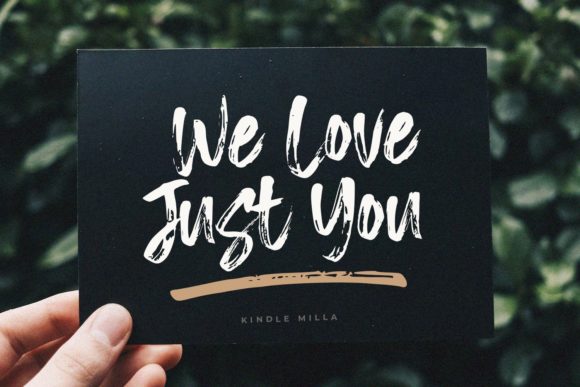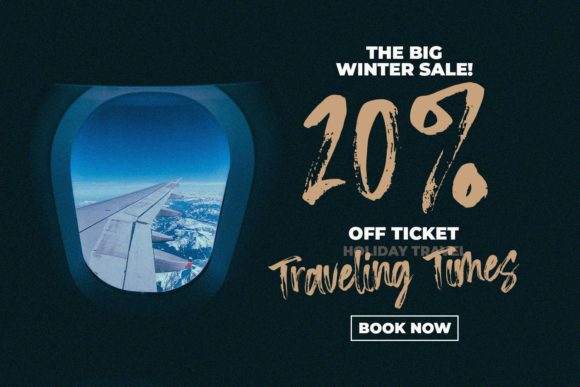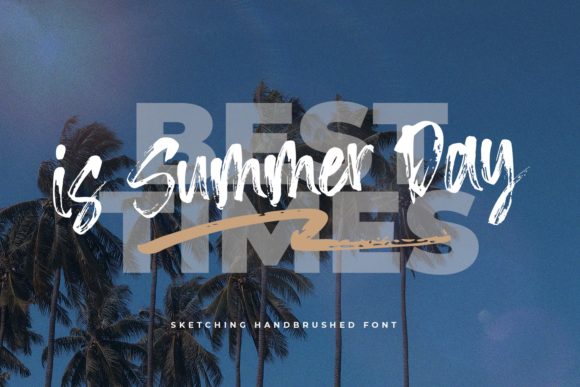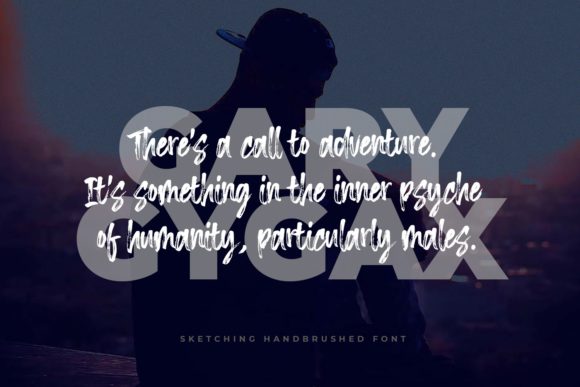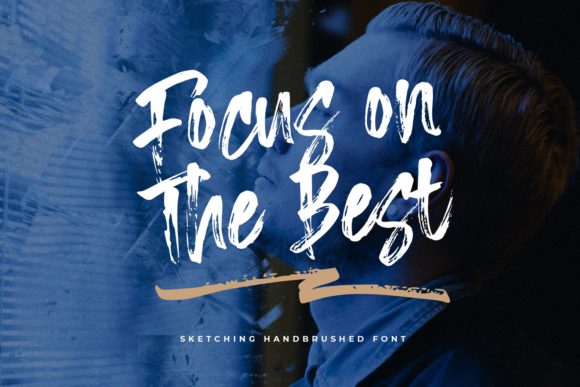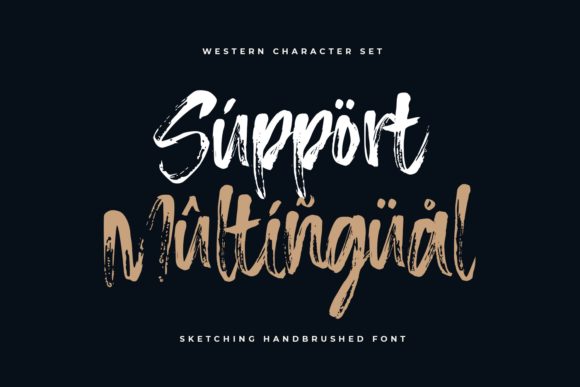
Introduction to Sketching Font
There’s something magical about the moment when a design idea comes together. You’re sitting at your desk, surrounded by scribbled notes and half-finished sketches, and suddenly it clicks – you’ve found the perfect font to bring your vision to life. For many designers, this moment is the culmination of hours of searching for the perfect design resource, and it’s what makes all the hard work worth it.
One font that’s sure to bring your creative project to the next level is the Sketching Font. This handbrushed script font boasts an authentic look and beautiful swashes that will add a touch of elegance to any design. With its high quality and transparent background, it’s the perfect addition to any design portfolio.
Key Features of Sketching Font
- High-quality, hand-drawn design resource ideal for creative projects
- Transparent background for easy layering and customization in your design
- Sketching Font comes in a single font size, with a resolution of 2048×2048 pixels for optimal clarity
- Perfect for designers, artists, and writers seeking a unique and creative touch for their projects
- Highly versatile, suitable for a wide range of applications, from digital art to print materials
Honest Review: Sketching Font
I recently came across the Sketching Font, a design resource that has caught my attention. As a designer, I appreciate high-quality fonts that can elevate my creative project. This font delivers.
- What works well: ✨ The Sketching Font is perfect for illustrations, sketches, and hand-drawn designs. Its unique style and texture add a touch of personality to any design.
- What works well: ✨ The Sketching Font is versatile and can be used in a variety of creative projects, from logos to branding materials.
- ⚠️ The font may not be suitable for designs that require a transparent background, as its texture can be quite prominent.
- ⚠️ The font is not as comprehensive as some other design resources, with a limited character set and no italic or bold styles.
Overall, I’m impressed with the Sketching Font. It’s a great addition to any designer’s toolkit, and its unique style makes it a standout resource. With some creative experimentation, I’m sure you’ll find plenty of ways to use it in your next project.
Sketching Font
Sketching Font is a versatile and high-quality design resource ideal for various creative projects. With a transparent background, this font can be easily integrated into your designs without any distractions.
Tips for Getting the Most Out of Sketching Font
To get the most out of Sketching Font, use it in combination with other design elements to create visually appealing and unique designs. Experiment with different font sizes, colors, and styles to achieve the desired effect.
Sketching Font is ideal for various creative projects, including: